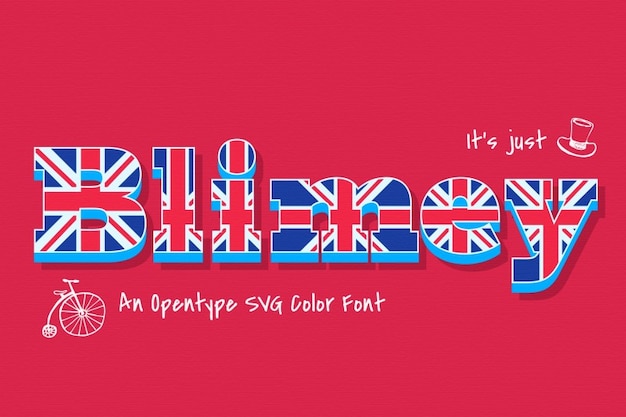
Blimey is a refined yet approachable typeface that captures the essence of London style. With elegant forms and a subtle British charm, it blends tradition and sophistication in a modern way. Perfect for designs that want to nod to the UK with grace, clarity, and timeless appeal.